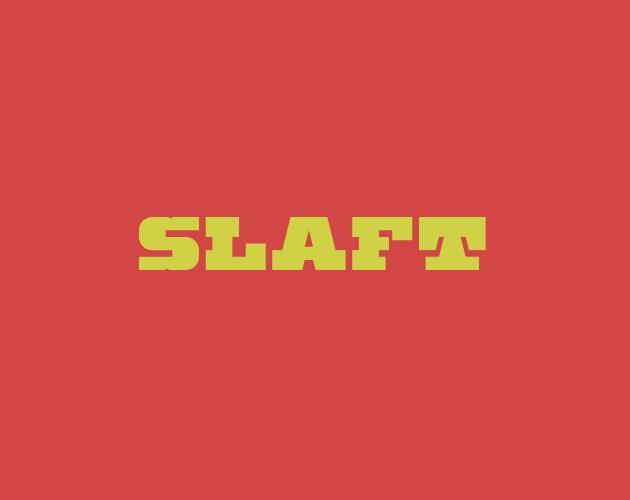
• My first attempt at a slab serif
Version 1.1 - I have adjusted the serif sizes the best I can. from the suggestions of Sed4tives and elmoyenique.
good job, Elliot!
Why there is so much inconsistency in the serifs?
Actually, they look like two or three different fonts put together... It would be very convenient to equal the design of the serifs and other font parameters to give it uniformity, IMHO.
I totally agree!